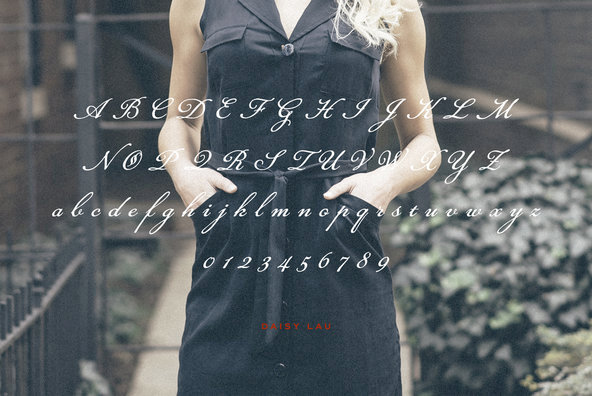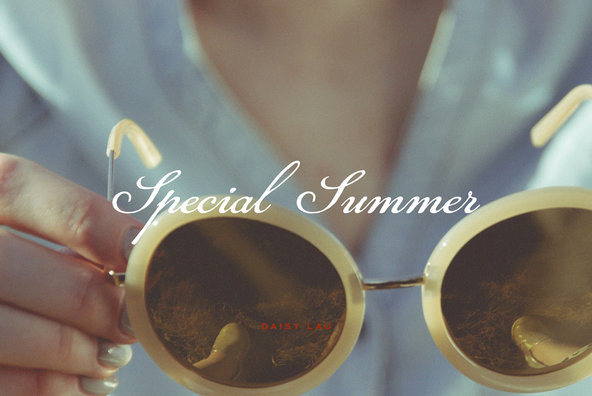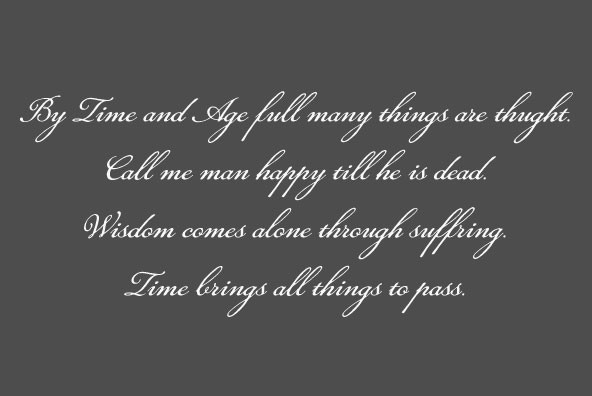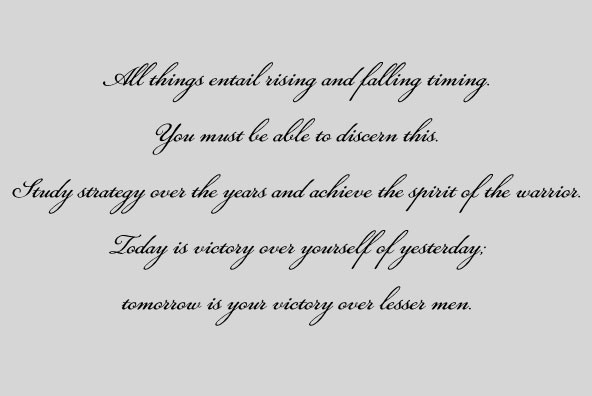
Daisy Lau Font
Daisy Lau
Based on Hongkong ladies f script in the 19th century, the Inky texture gives this font a realistic handwriting appearance.
In the early 2000's, Ryoichi Tsunekawa was fascinated by the relations between modernist design and Bauhaus style while studying architecture at Nagoya University. He eventually changed his focus to type-design, establishing an extensive font collection that is now available on YouWorkForThem.The desig...